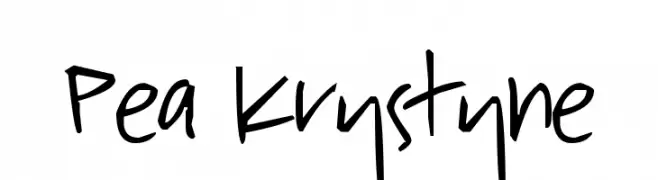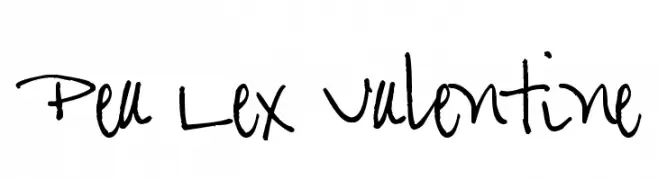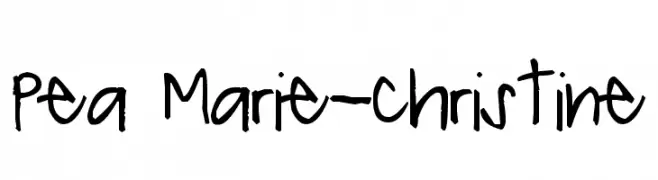
• Pea Krystyne
A playful, casual handwritten font with dynamic strokes.
• Pea Krystyne's Doodles
A playful, doodle-inspired font with a whimsical, handwritten style.
• Pea Lex Valentine
A lively, handwritten font with flowing, cursive letterforms and a personal touch.
• Pea Lisel
A casual, handwritten font with playful and irregular strokes.
• Pea Lisel Caps
A playful, handwritten font with bold, dynamic strokes and a casual style.
• Pea Loftsgard
A casual, handwritten font with a playful and informal style.
• Pea Lopez
A playful, casual handwritten font with flowing strokes and a friendly tone.
• Pea Maia's Doodles
Hand-drawn doodle icon set with a whimsical, playful feel.
• Pea Marie-Christine
A playful, casual handwritten font with irregular, organic strokes.
• Pea Marsha
A playful, casual handwritten font with irregular strokes and a dynamic slant.